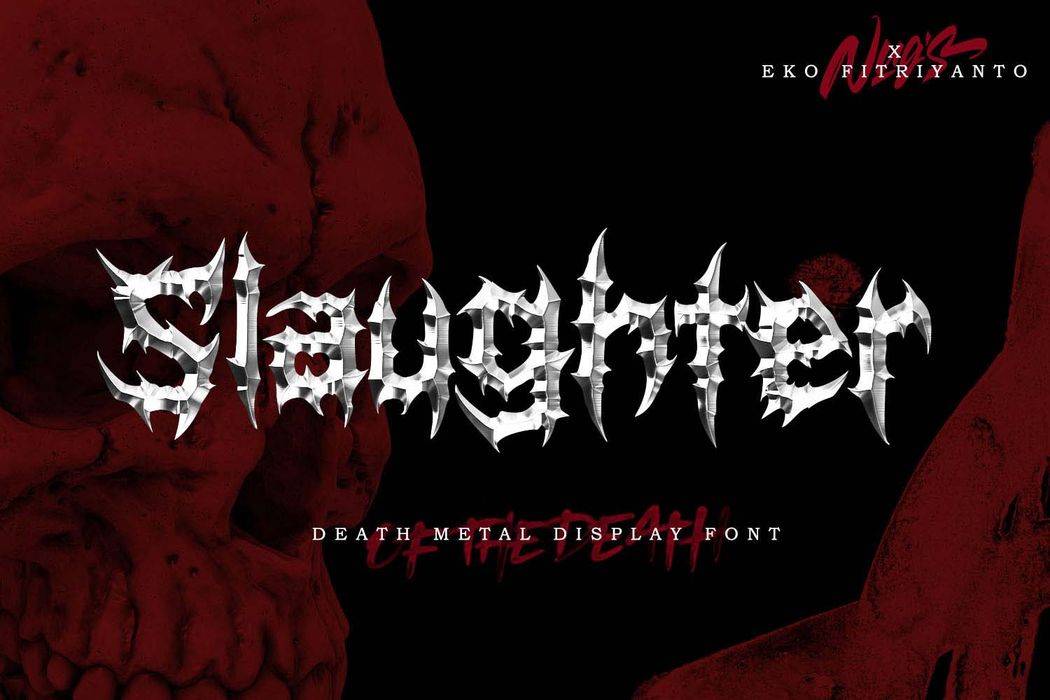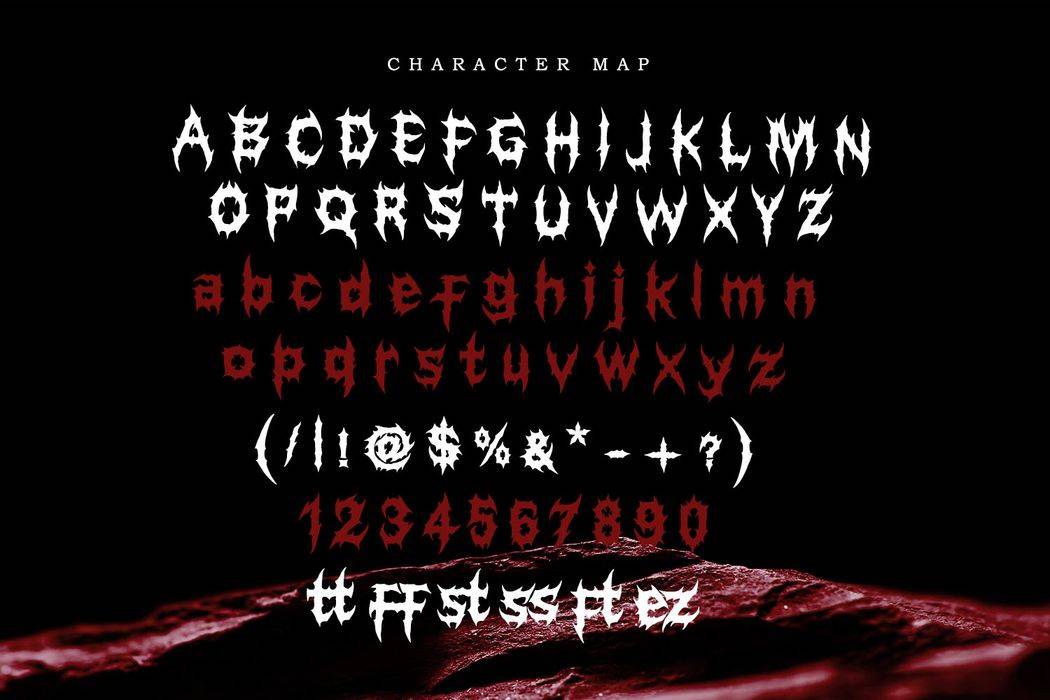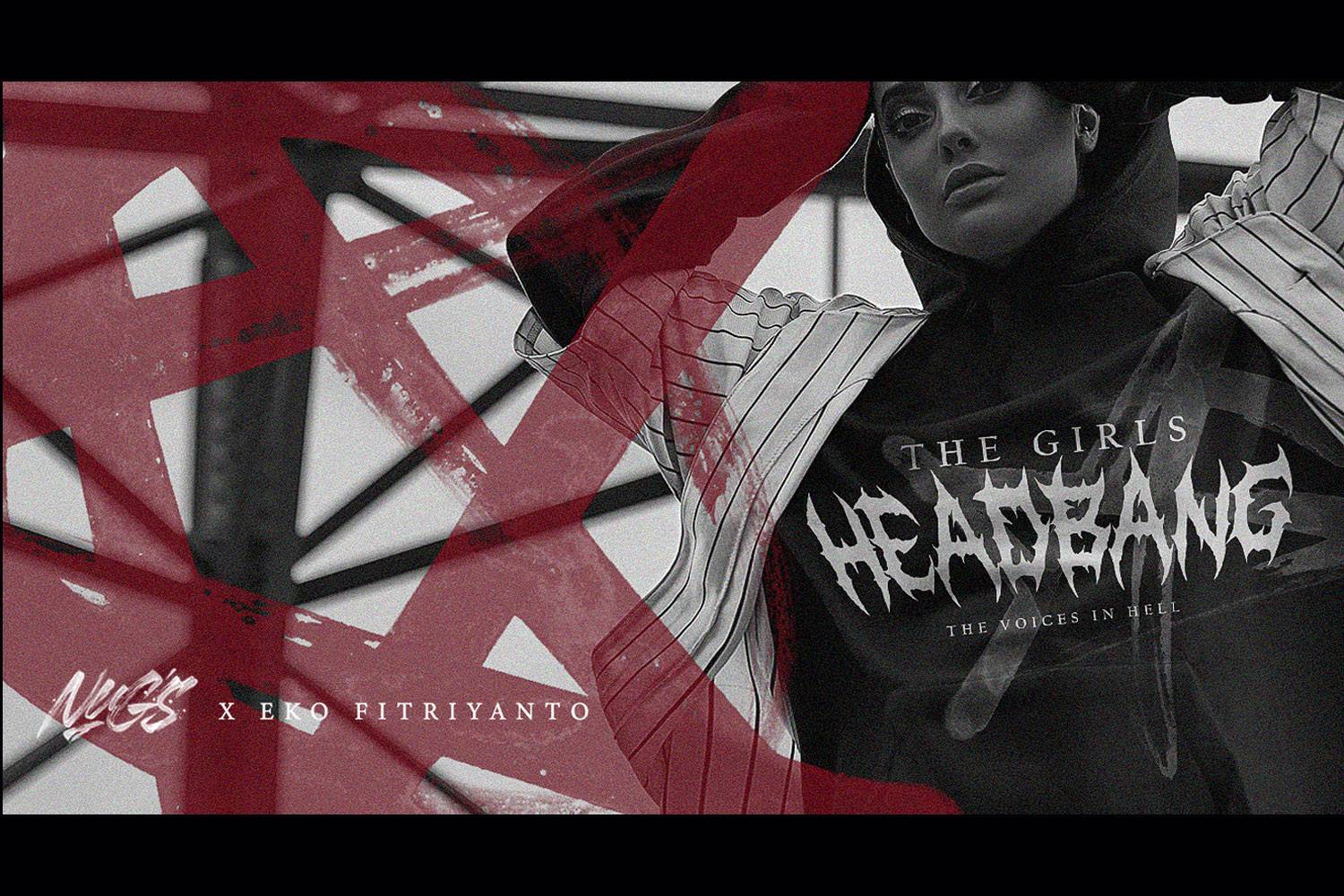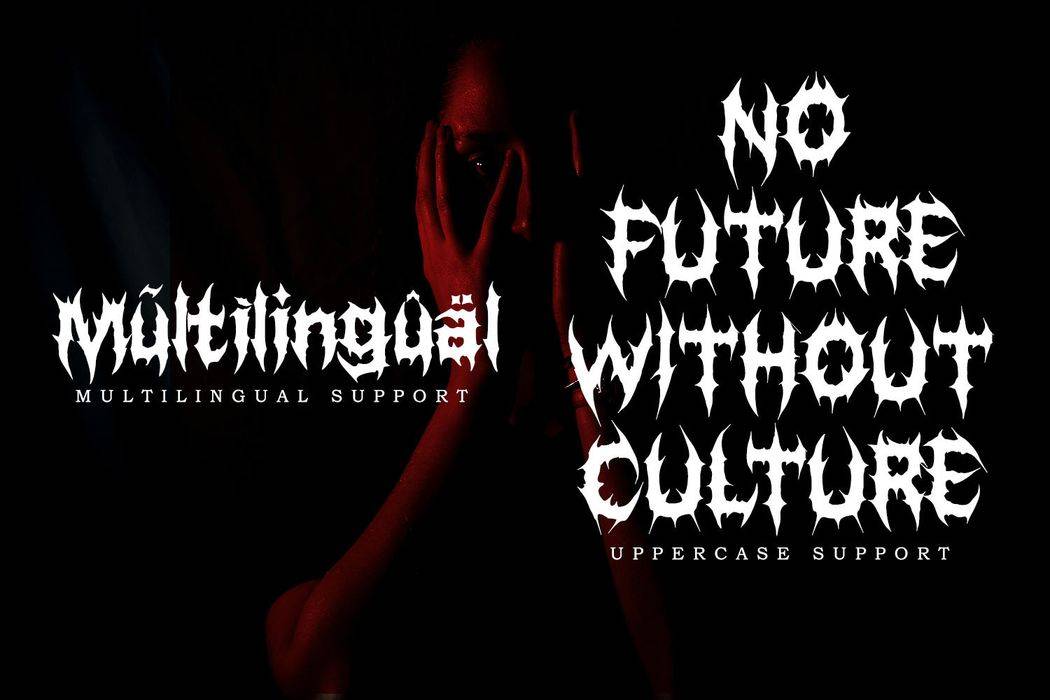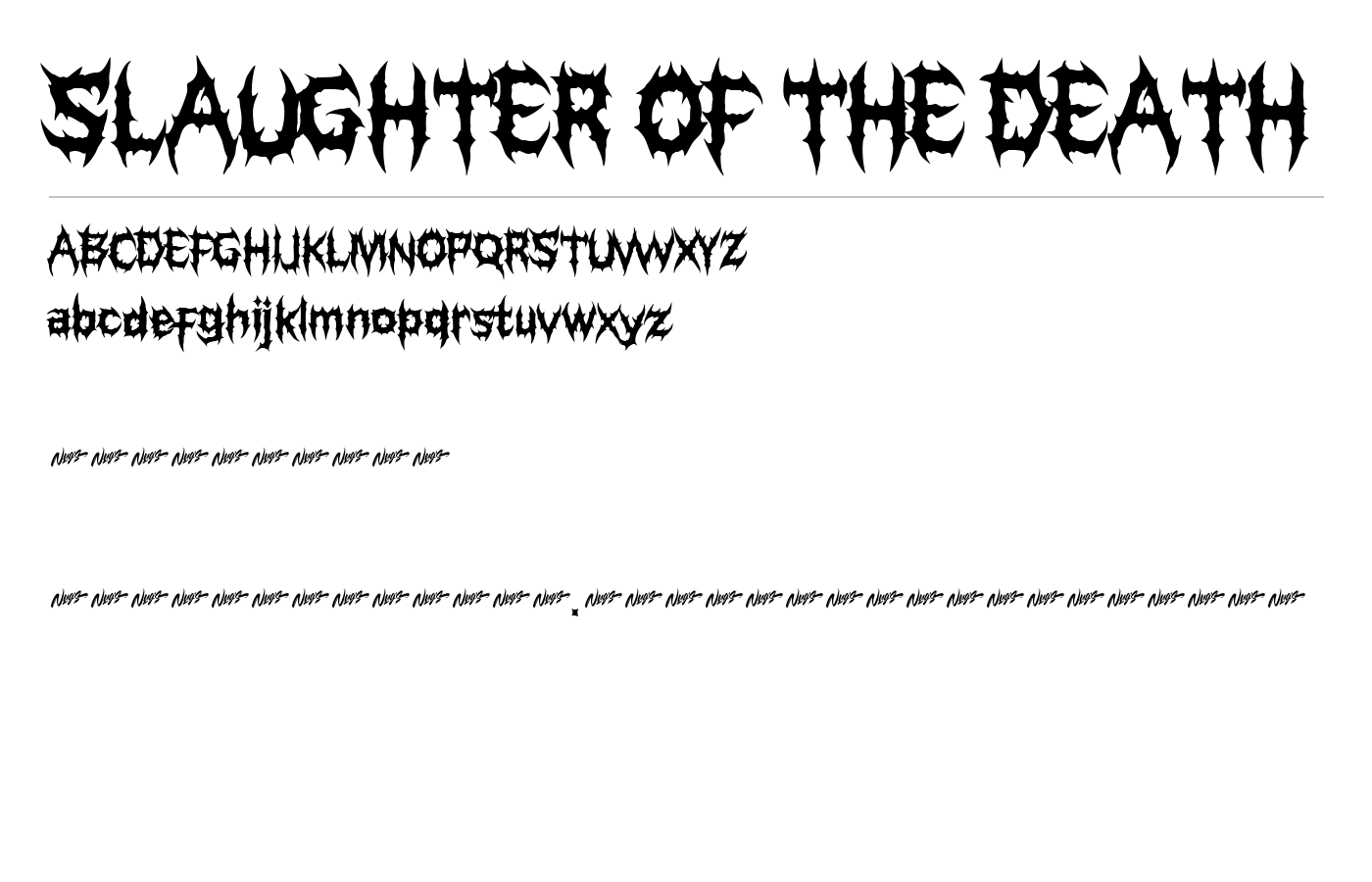
Slaughter Font is a bold and striking display typeface with sharp, jagged edges that give it a fierce, aggressive look. Its distressed, spiky letterforms evoke a horror or metal music vibe, making it perfect for striking headlines, posters, and branding that aims to convey intensity and edginess. This font works best in large sizes where its unique shapes can make a strong visual impact.
Slaughter Font
About Slaughter Font
| Font family | Slaughter Font |
| Designer | Eko Fitriyanto x Andrie Nugrie |